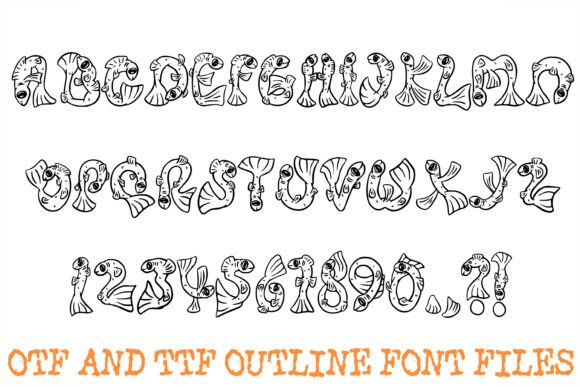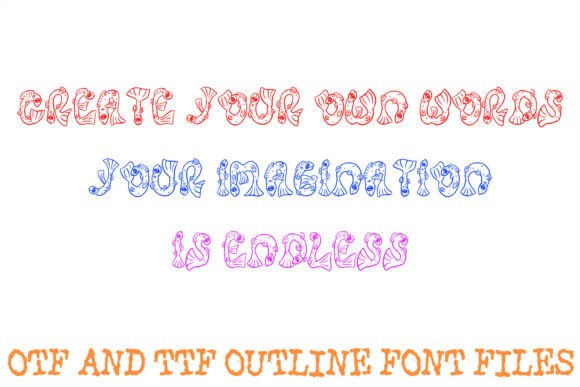
Introduction to Funky Fish Font
The Funky Fish Font is a vibrant, aquatic display typeface where every character is an underwater companion.
| 👤 Author | squeebcreative |
Featuring bold, colorful letterforms shaped like whimsical tropical fish—complete with expressive eyes, flowing fins, and bubbly textures—this font is a premier choice for designers working on aquarium signage, children’s book titles, summer pool party invitations, and playful marine-themed branding The design captures a sense of movement and “swimmy” energy, with hand-drawn outlines that give each letter a unique, organic personality.
Key Features of Funky Fish Font
Why Choose Funky Fish Font?